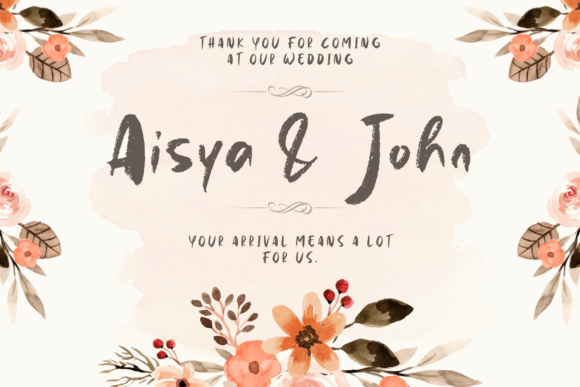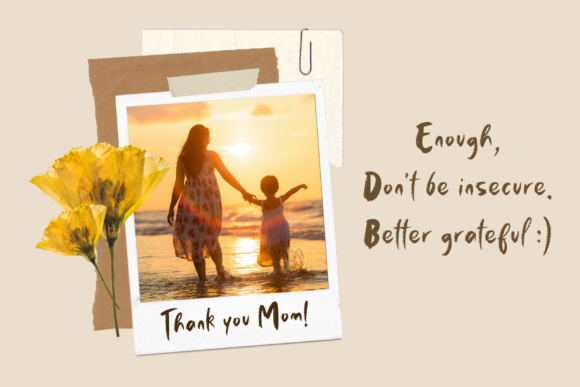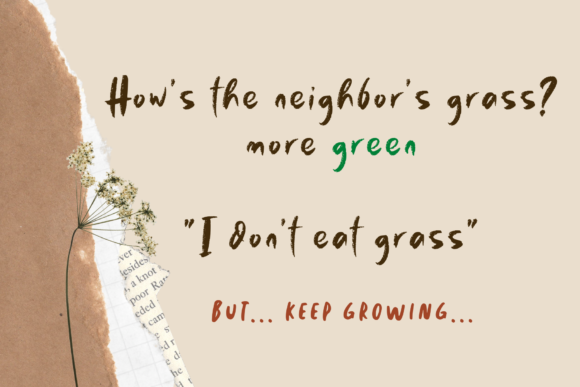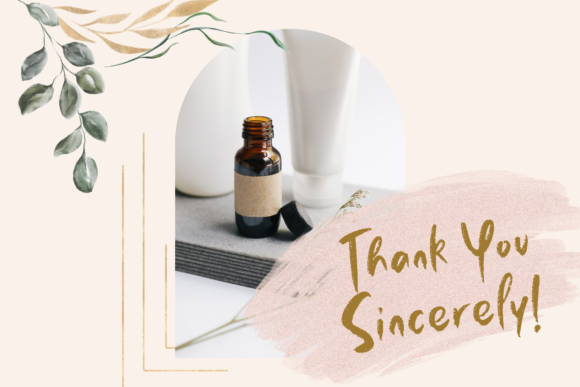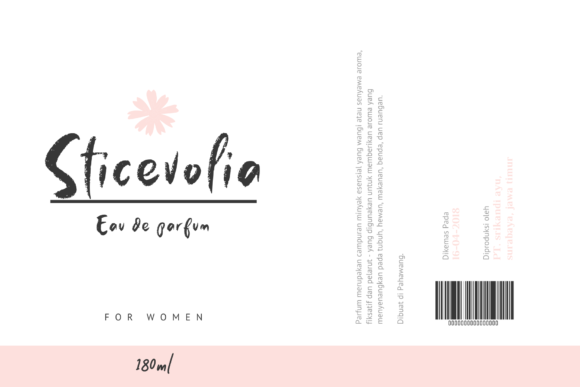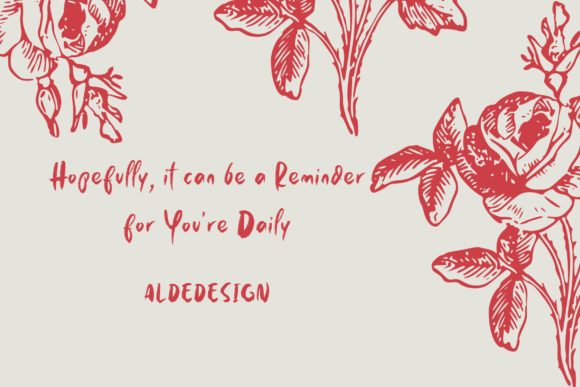
Introduction to Matish Font
Imagine you’re working on a creative project, and you’re struggling to find the perfect font to match your vision. You’ve browsed through countless options, but nothing seems to capture the essence of your idea. That’s when you stumble upon a hidden gem – a font that’s not only aesthetically pleasing but also versatile and high-quality. Welcome to the world of Matish Font, a cool, rough-textured and brushed display font that’s about to become your new design resource.
With its unique texture and style, Matish Font is the perfect addition to any creative project, whether you’re working on a design for a transparent background or a bold statement piece. Its PUA encoding makes it easy to access all the amazing glyphs and ligatures, giving you the freedom to experiment and push the boundaries of your design. Whether you’re a seasoned designer or just starting out, Matish Font is an invaluable asset that will elevate your work to new heights.
Honest Review: Matish Font
I recently had the chance to work with the Matish Font, and I must say it’s been a great addition to my design resource library. This high-quality font is perfect for any creative project that requires a unique touch.
What works well: ✨ The Matish Font has a beautiful, modern design that can easily be customized to fit any style. The transparent background makes it easy to use on any background image or color. I also appreciate that it’s free to download, making it a great resource for designers on a budget.
What doesn’t work well: ⚠️ While the Matish Font is high-quality, it may not be the best choice for projects that require a lot of text. The font is quite decorative, so it’s best used for headings or titles rather than large blocks of text.
Overall, I’m really impressed with the Matish Font. It’s a great design resource that can add a touch of elegance to any creative project. With its high-quality design and transparent background, it’s a must-have for any designer.
I would definitely recommend the Matish Font to anyone looking for a unique and stylish font for their next project.
Matish Font is ideal for use in creative projects such as logos, branding materials, and marketing materials. It’s also great for use in presentations, reports, and other documents where a high-quality font is required.